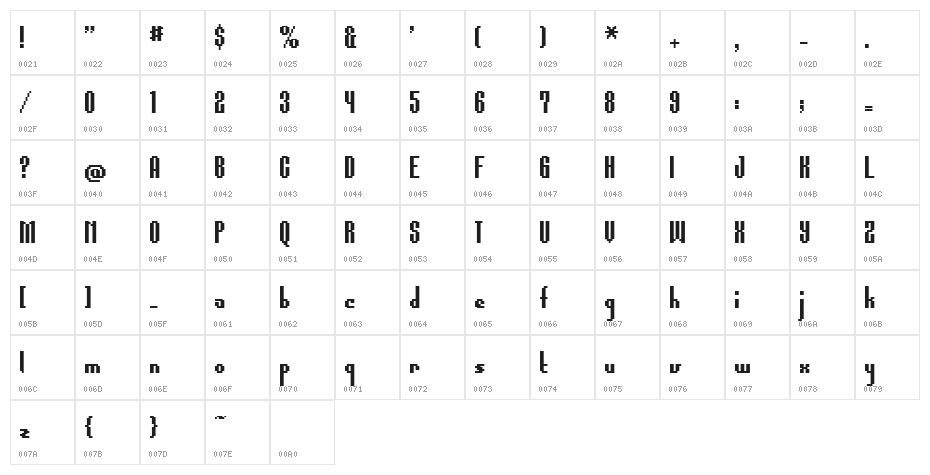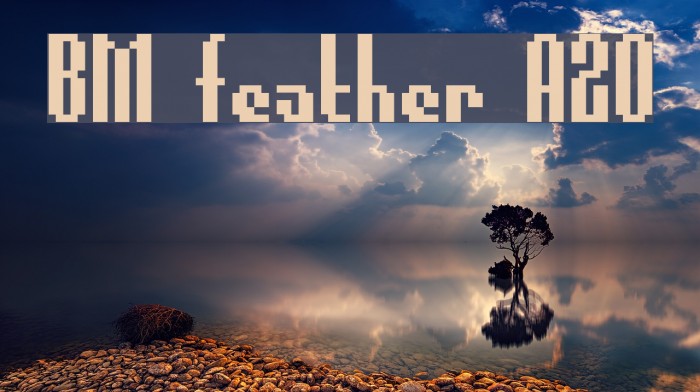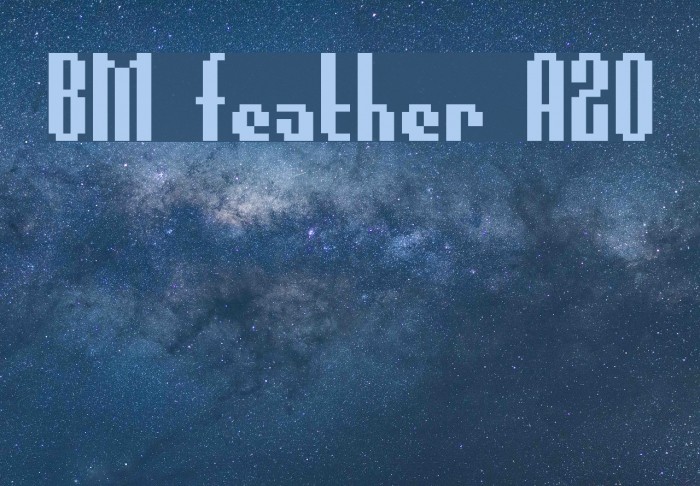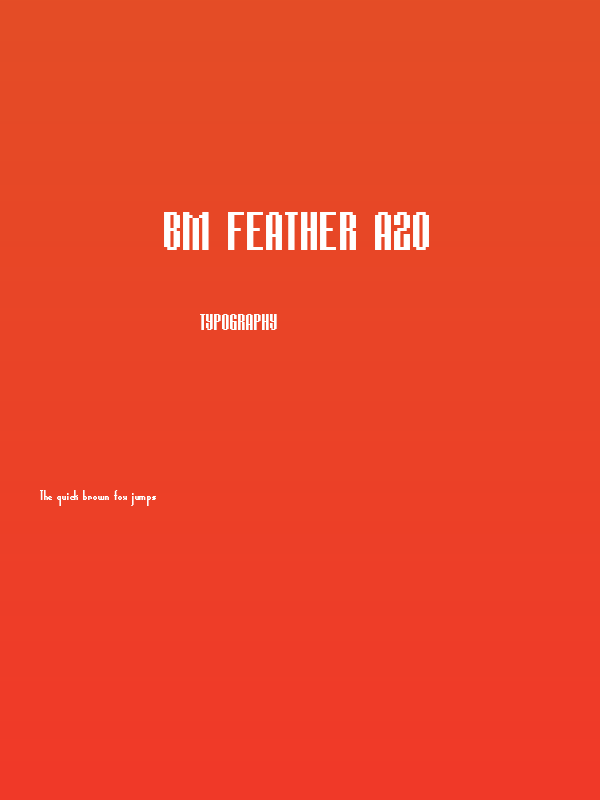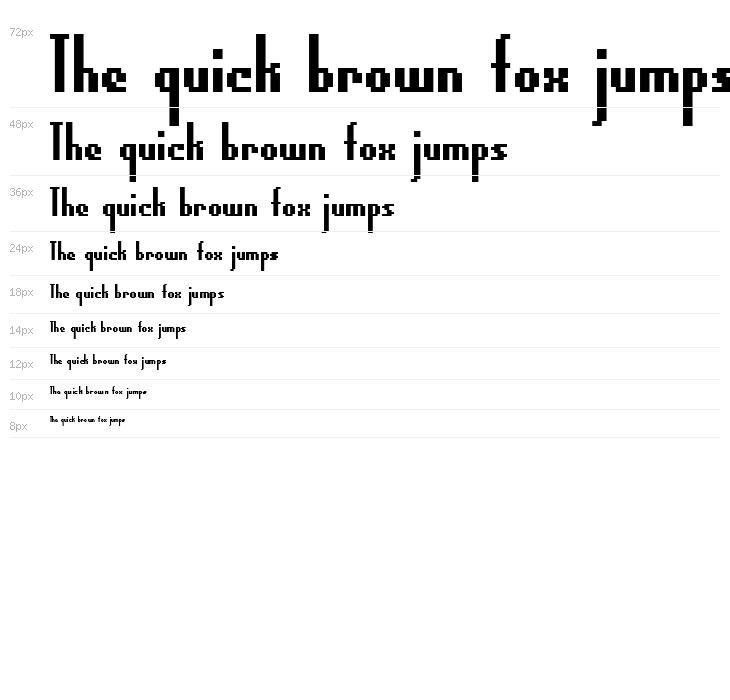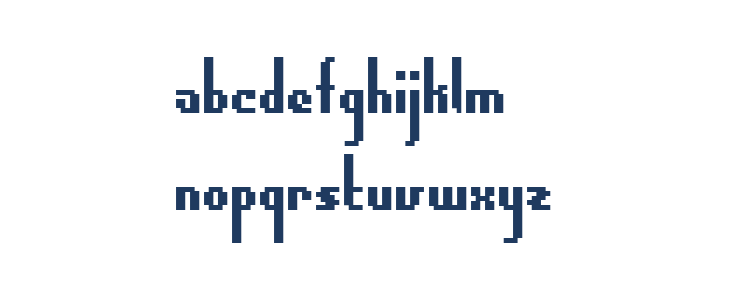
BM feather A20 Font
BM feather A20 Description
This font features a bold, pixelated style reminiscent of early digital and arcade aesthetics. The characters are blocky and geometric, with a consistent height and width that gives a uniform appearance. The uppercase and lowercase letters maintain a similar structure, with slight variations in size and form. Numbers and special characters follow the same pixelated design, ensuring a cohesive look across all elements. This font is ideal for projects that aim to evoke a retro or digital theme, providing a nostalgic feel with its distinct, sharp edges.
| Overall Style | Retro, Digital |
| Proposed Projects | Ideal for video game design, retro-themed posters, digital art, and tech-related branding. |